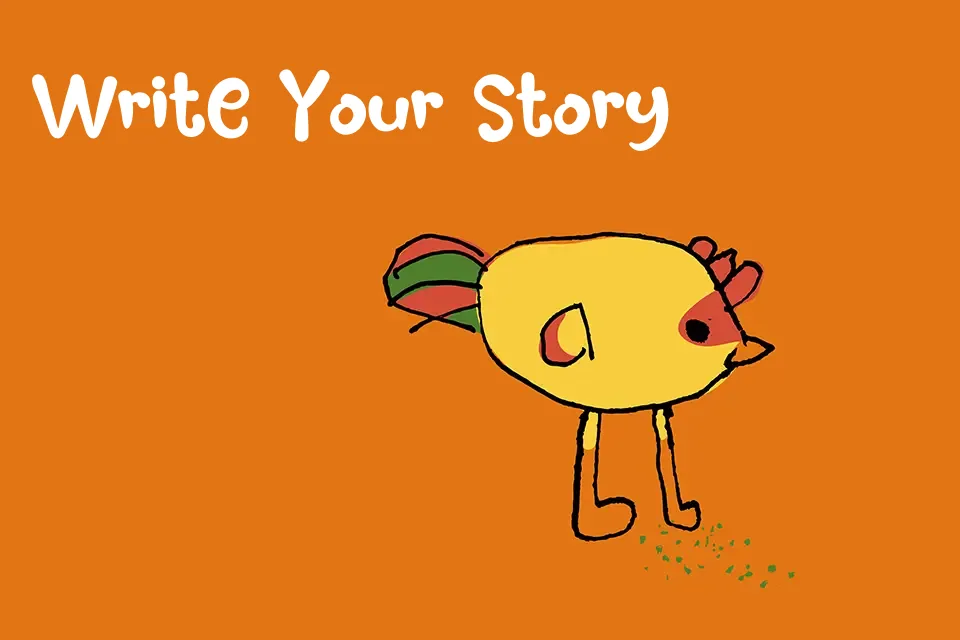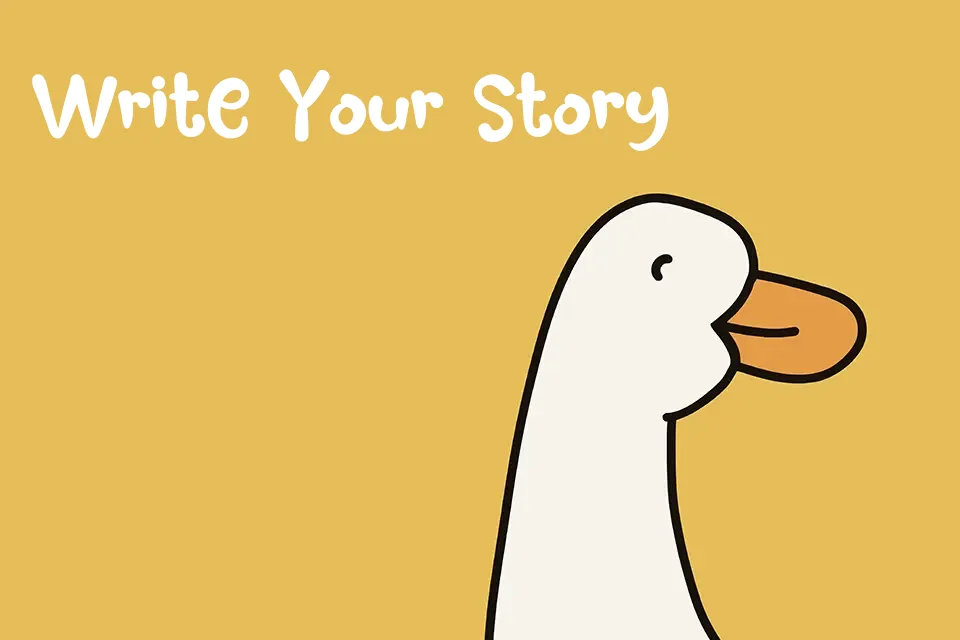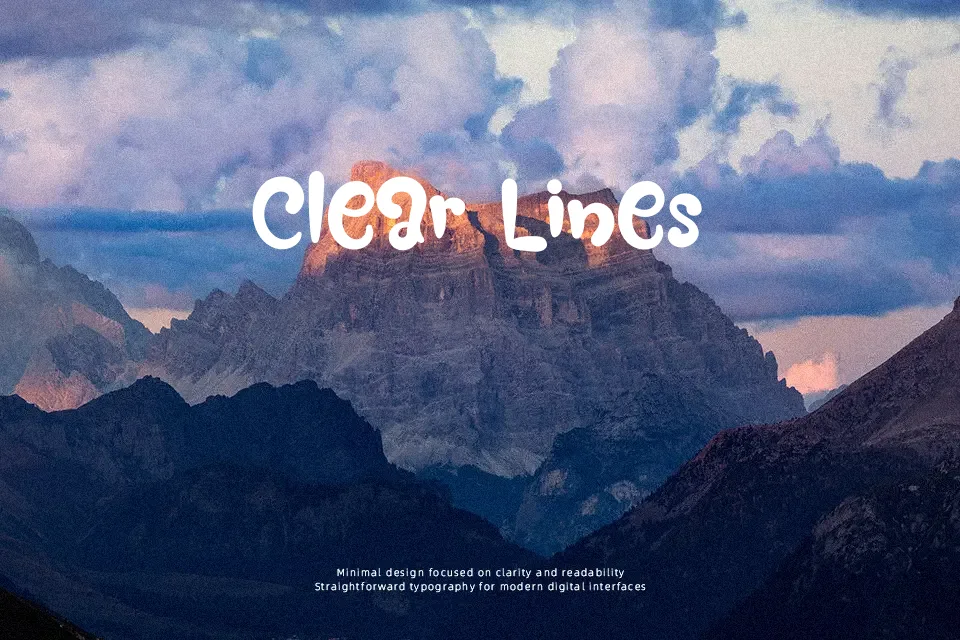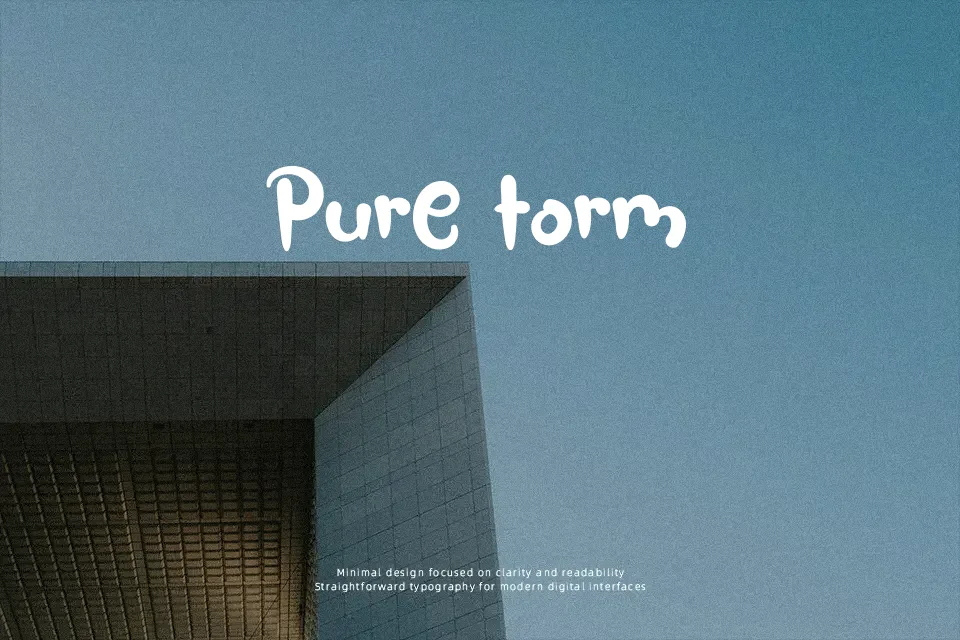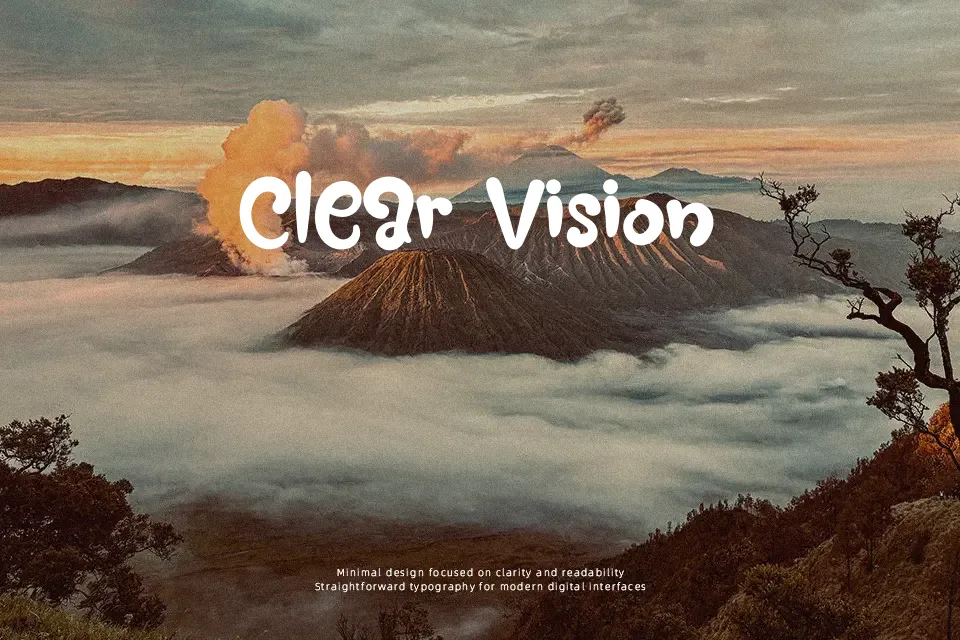
Sunshine Font
Sunshine Font presents an informal, cartoon-inspired design defined by smooth, curved strokes and a relaxed, hand-drawn character weight. Each letterform incorporates uneven baseline bounces and rounded terminals that establish an energetic rhythm across short words. Moderate letter spacing prevents the organic contours from colliding, maintaining consistent readability in medium-sized headline displays. The uppercase glyphs carry distinct quirky shapes, while the lowercase set maintains balanced proportions for brief narrative lines. However, dense multi-line paragraphs reveal irregular optical spacing that hinders continuous reading comfort. In practical application, the typeface delivers maximum personality when applied to packaging graphics, toy branding, and animated video banners.
Best For: children book covers, toy packaging, cartoon video titles, youth event posters
Not Ideal For: body text in books, corporate annual reports, mobile app interfaces, dense legal documents
Perfect for headline, kids, and packaging, with a creative and cartoon style.